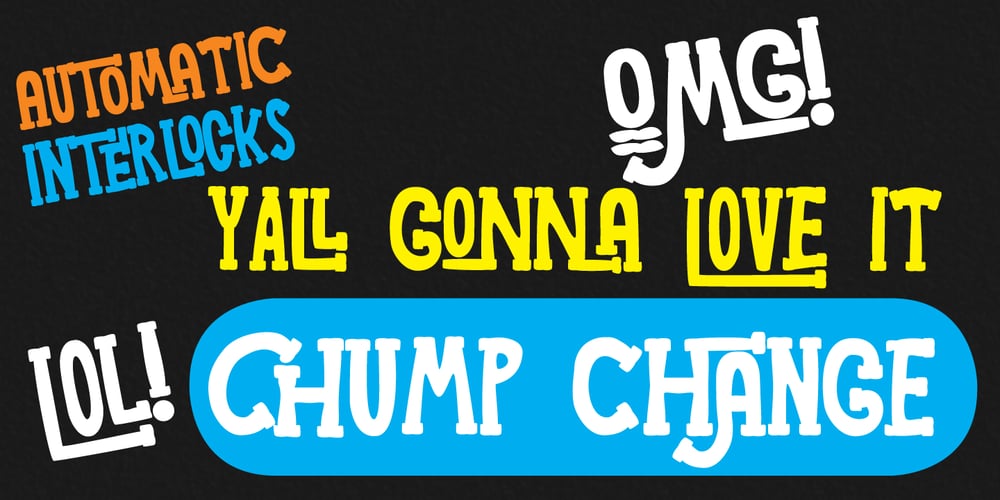
Chump Change Font Family was designed by published by AdultHumanMale. Chump Change contains 1 styles and family package options. Chump Change is a fun chunky serif ALL CAPS display font. I wanted it to look blocky and loud, So it can scream from Posters and Headlines. It has over 300 glyphs, several variations on the standard alphabet and all those extra pesky foreign features. OpenType coded, it has various letter pairings that interlock automatically to create a more randomized, bespoke feel to your copy. It also has some extra characters available directly through your glyphs palette. Play around with it, I hope you like it.